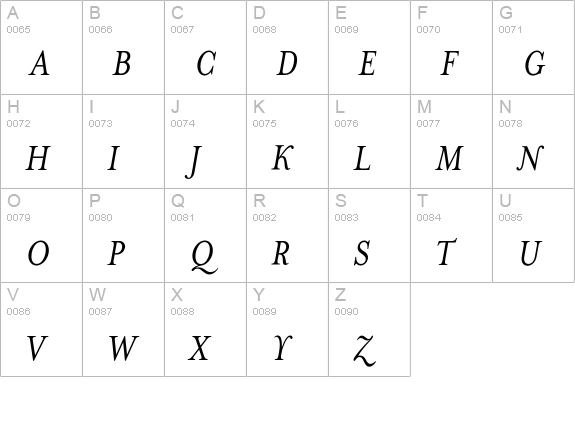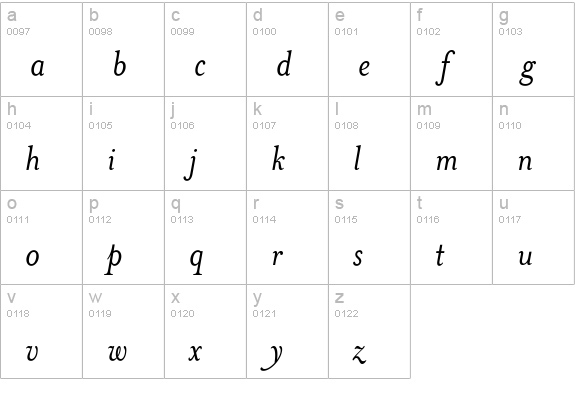
MrsEavesItalic Font Details
MrsEavesItalic is a graceful and elegant typeface that exudes sophistication and charm. With its delicate curves and stylish letterforms, this font is perfect for adding a touch of class to any design project. The italic style of MrsEavesItalic brings a sense of fluidity and movement, making it a versatile choice for both print and digital applications. What's even better is that MrsEavesItalic is available for free download at FontsMarket.com. This means you can easily access this beautiful font and use it in your projects without any cost. Whether you're designing invitations, branding materials, or website content, MrsEavesItalic is sure to impress with its timeless appeal and modern aesthetic. Download it today and elevate your designs with this stunning typeface.